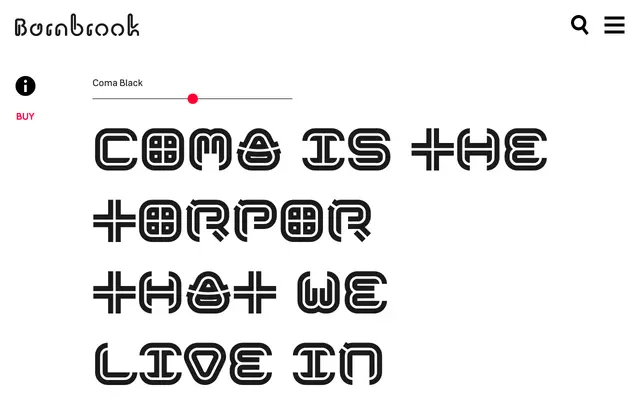
A modular, square-profile display typeface designed to sit alongside Japanese typography, set horizontally or vertically.
Built on a strict square grid, Coma is intended as a companion to Japanese type, where its proportions align naturally with the fixed-width character blocks of CJK setting. The modular construction gives it flexibility across orientations, making it suited to packaging, editorial and identity work where Latin and Japanese type must coexist. Its name references a state of overwhelm in response to modern information culture.
Coma's modular, square construction and vertical/horizontal setting capability place it firmly in the geometric display category, designed for striking typographic configurations rather than extended text use.